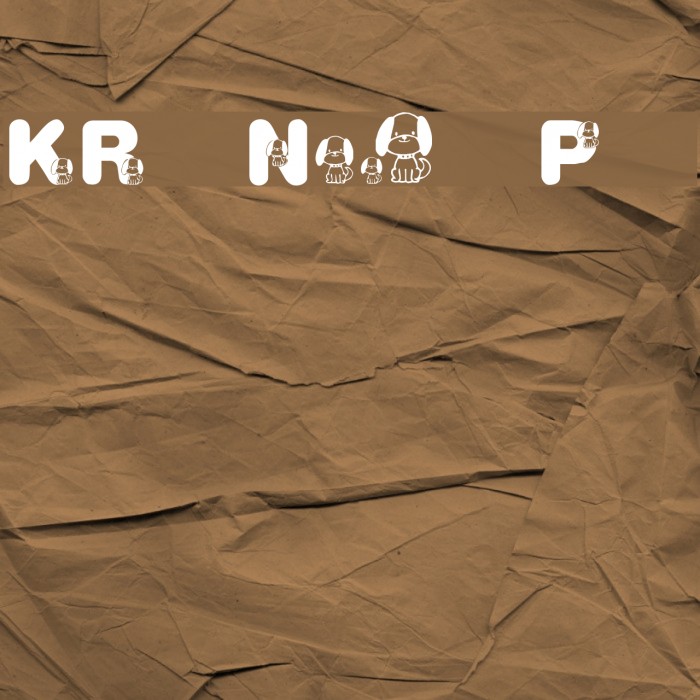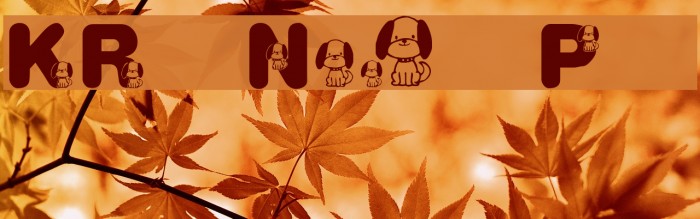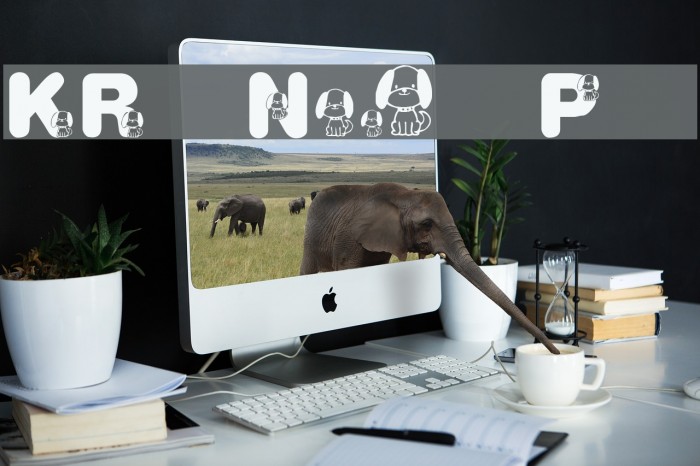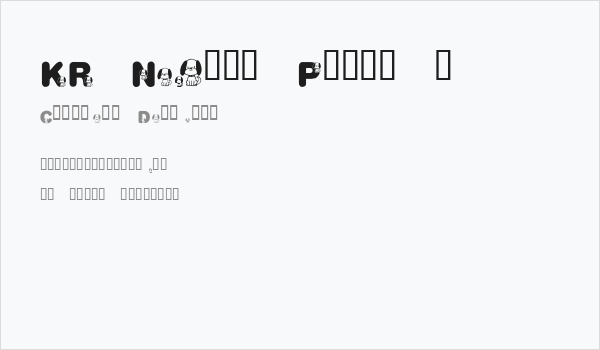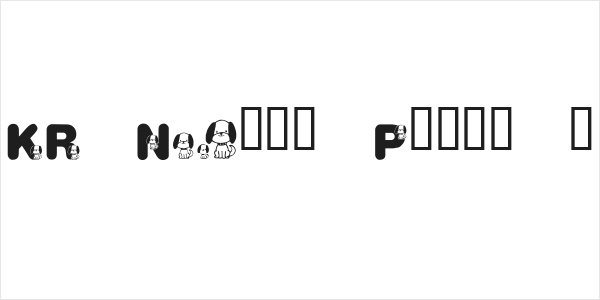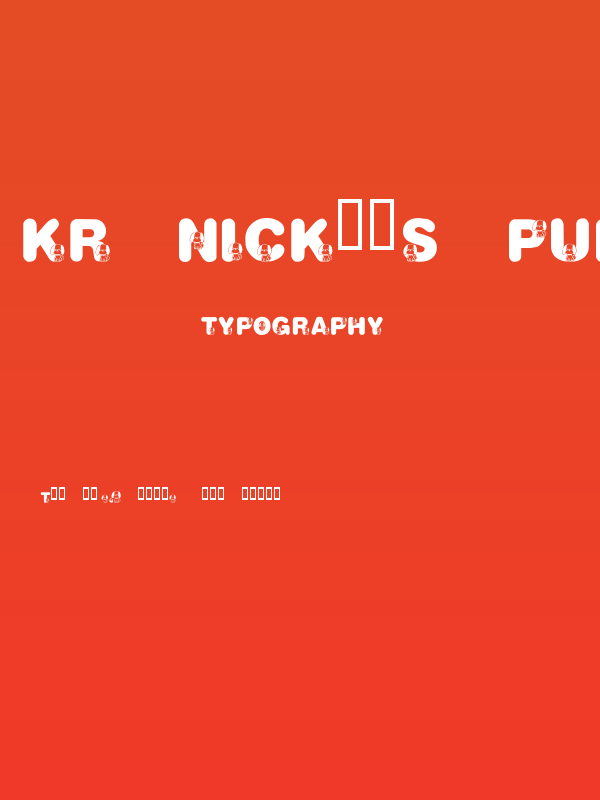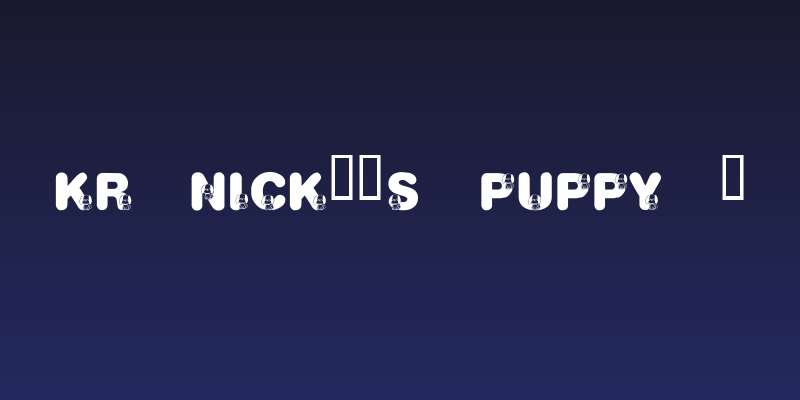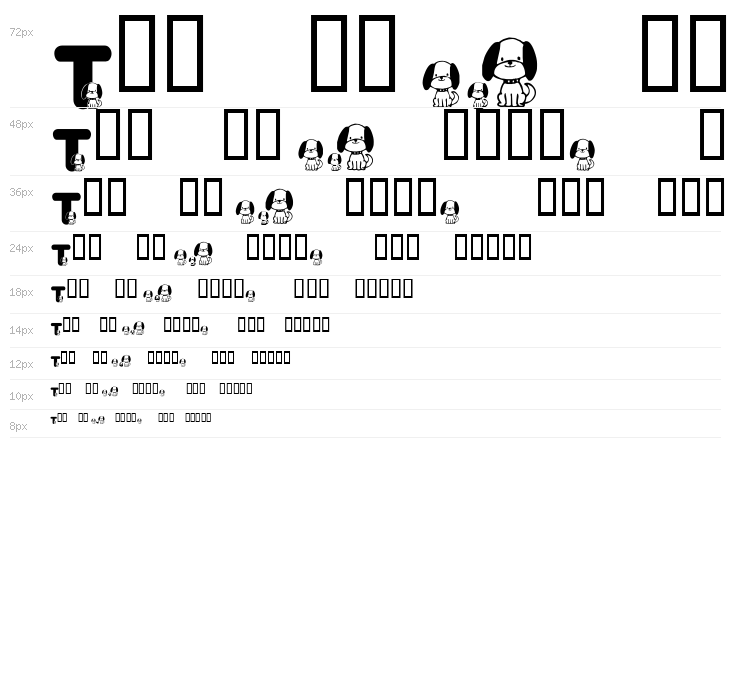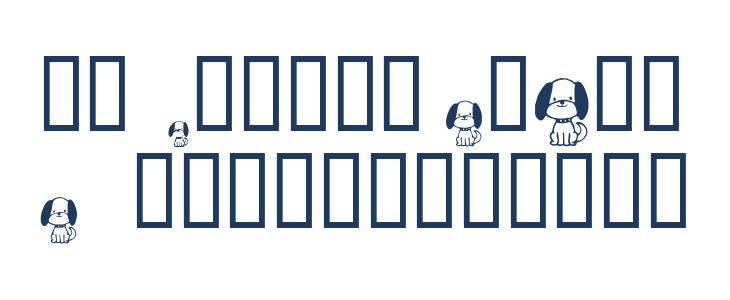
KR Nick's Puppy 1 Font
KR Nick's Puppy 1 Description
This playful and whimsical font features bold, rounded uppercase letters with adorable puppy illustrations integrated into each character. The design is highly decorative, making it ideal for projects that require a fun and lighthearted touch. Each letter is crafted with a consistent thickness, providing a uniform appearance across the alphabet. The integration of the puppy graphics adds a unique and engaging element, making it particularly suitable for children's materials, pet-related branding, or any creative project that seeks to convey joy and friendliness.
| Use Case | Headlines, Logos, Decorative text |
| Proposed Projects | Ideal for children's books, pet store branding, playful posters, and greeting cards. |